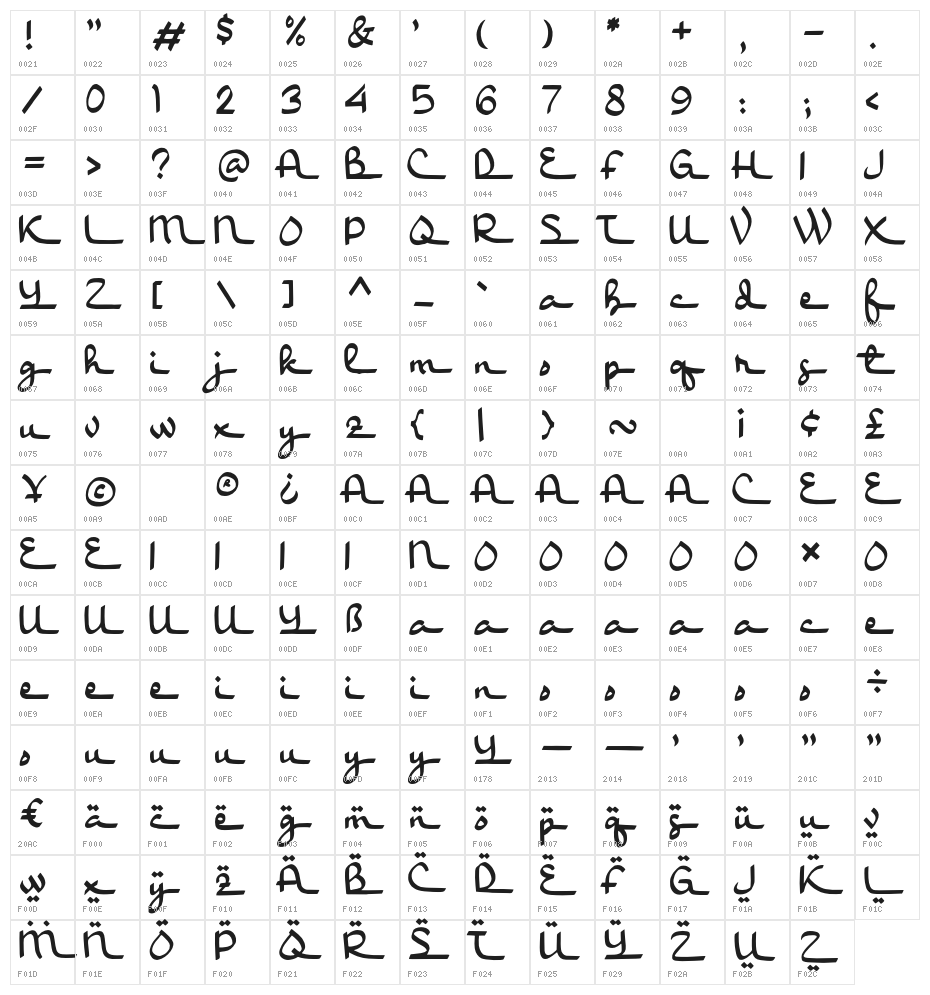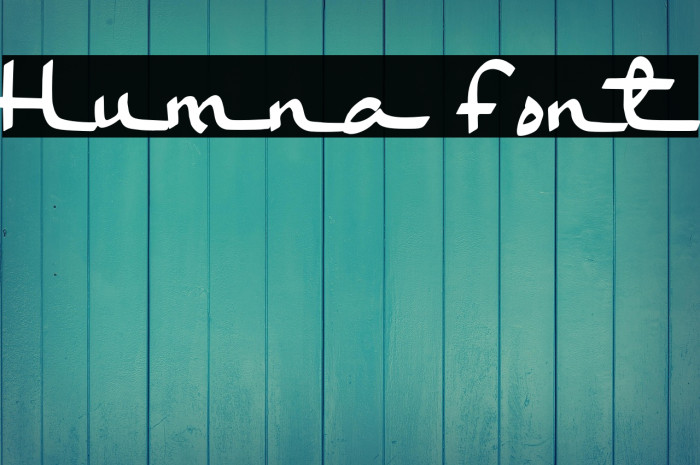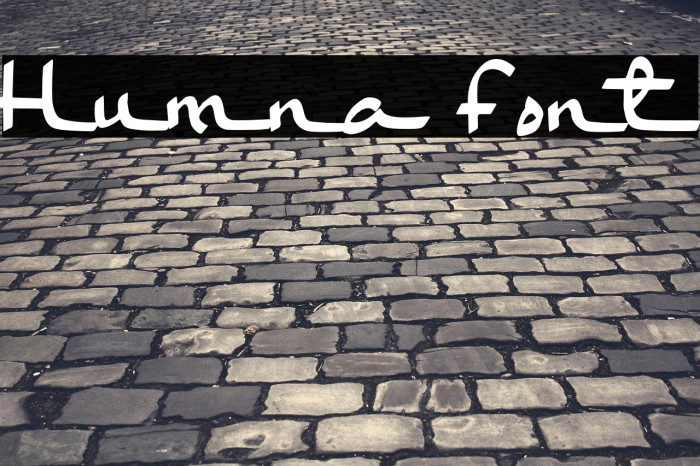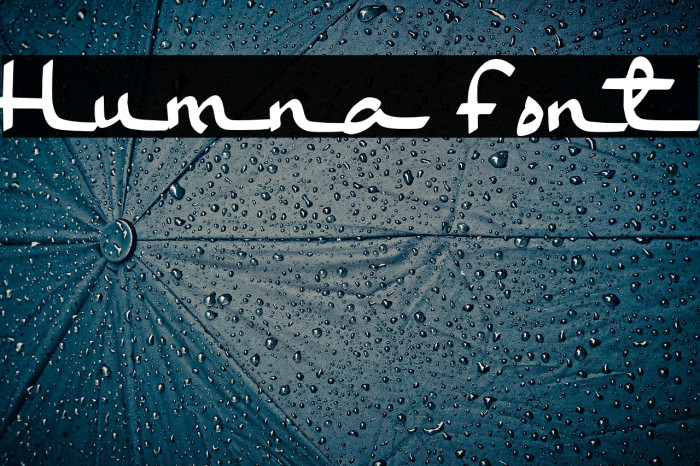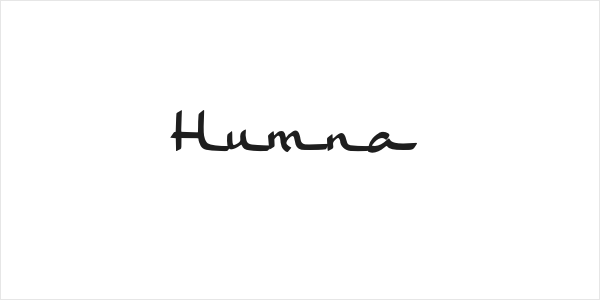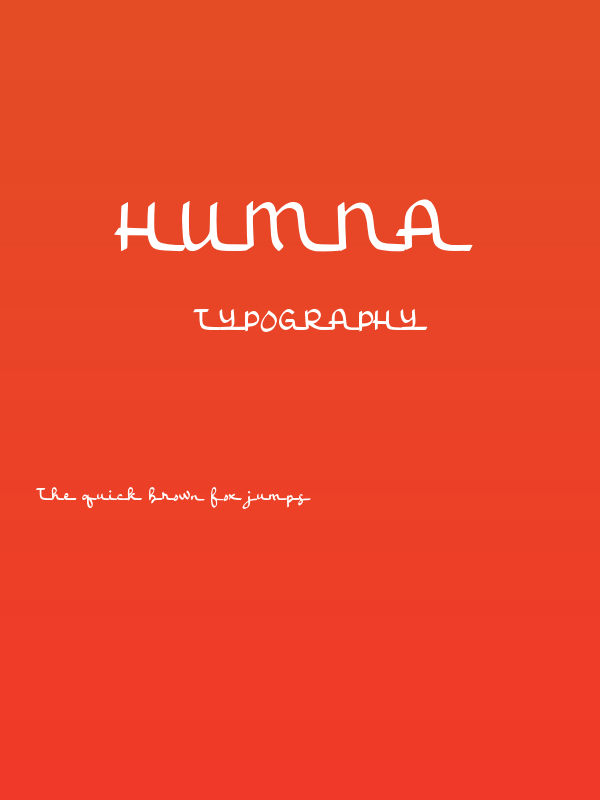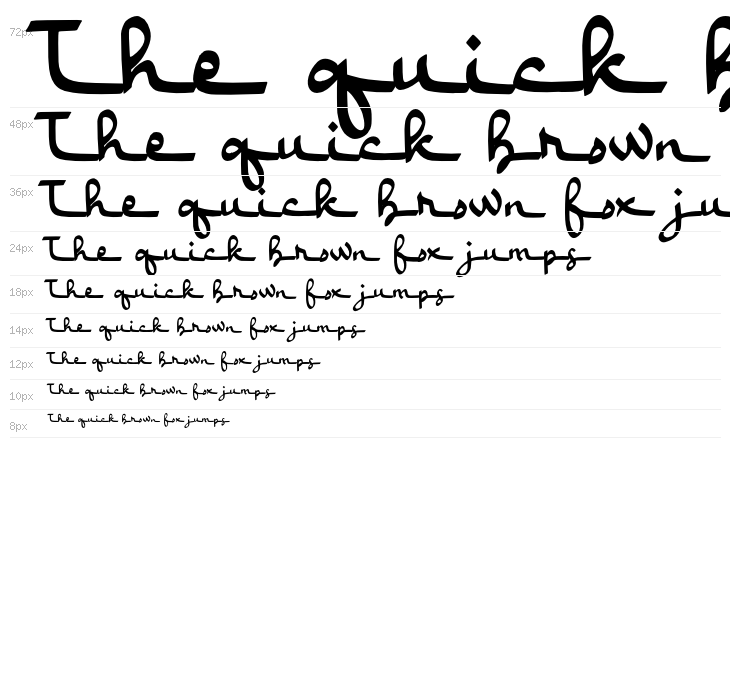
Humna Font
Humna Description
This font features a playful and casual handwritten style, characterized by its smooth, flowing curves and slightly irregular strokes. The uppercase letters maintain a consistent height, while the lowercase letters exhibit a natural, connected script that mimics the fluidity of cursive handwriting. The numbers are bold and slightly rounded, adding to the font's approachable and friendly appearance. Special characters are integrated seamlessly, maintaining the overall cohesive look. This font's informal and relaxed style makes it ideal for projects that require a personal touch.
| Overall Style | Casual, Playful |
| Use Case | Headlines, Informal text, Personal projects |
| Proposed Projects | Greeting cards, invitations, personal branding, social media graphics, and casual event posters. |